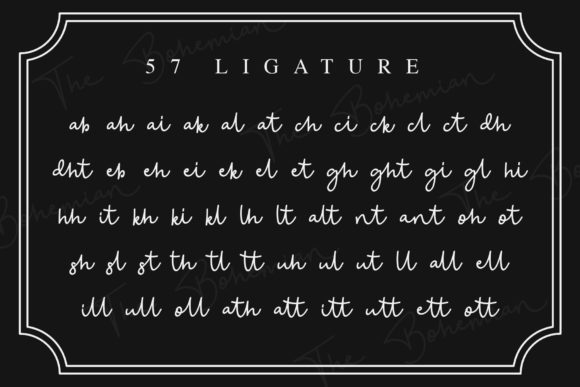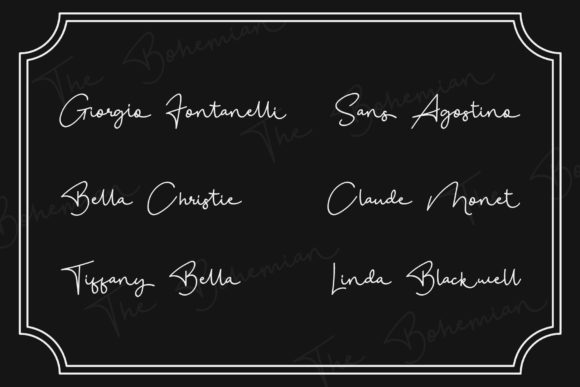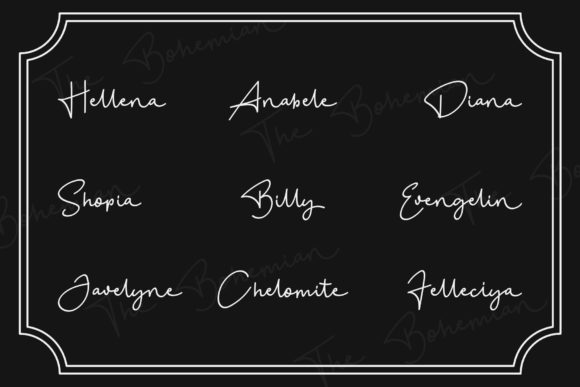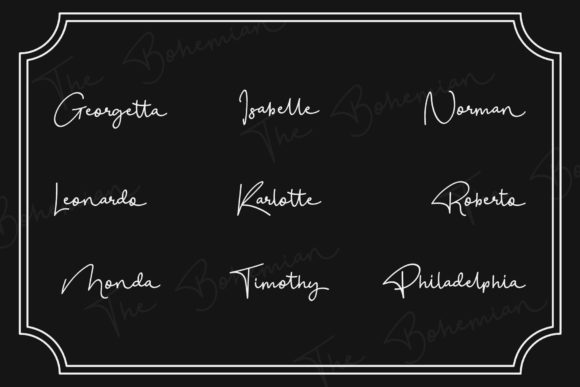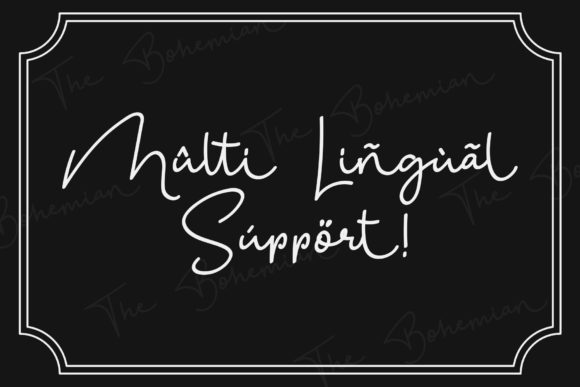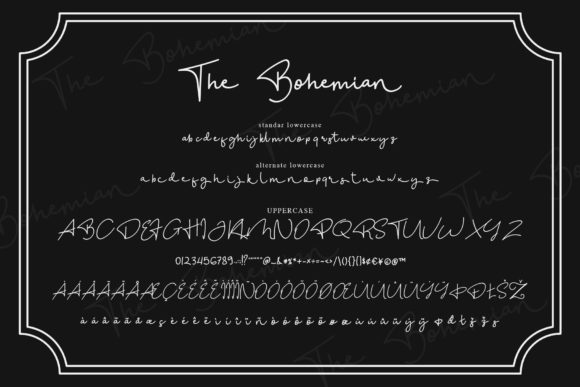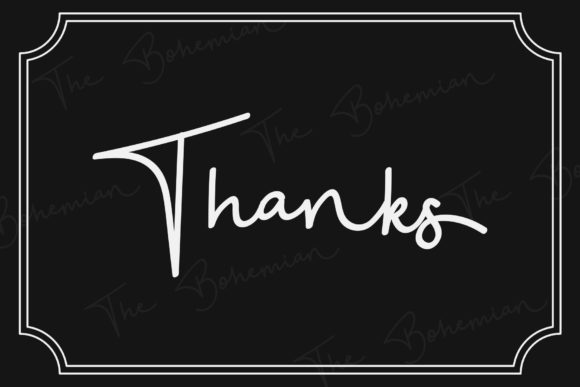
Bohemian Font
About Bohemian Font
The Bohemian stands as an elegant handwritten script font, characterized by its simple yet classy style. Designed to add a touch of sophistication to various applications, this font proves to be a versatile and stylish choice for a range of creative projects.
One of the standout features of The Bohemian is its adaptability, making it well-suited for a multitude of purposes. Whether enhancing the aesthetics of photography, lending a touch of elegance to signatures, bringing quotes to life, gracing album covers, or elevating the professionalism of business cards, The Bohemian effortlessly complements diverse design contexts.
The font’s simplicity is a key element of its charm, contributing to a timeless and refined visual appeal. The Bohemian’s handwritten script brings a personal touch to your work, creating an authentic and classy vibe that resonates across different applications. It’s not just a font; it’s a design element that has the power to enhance and elevate your creative endeavors.
In essence, The Bohemian is a valuable tool that aspires to take your work to the highest level. Its simple and classy style serves as a foundation for creating visually appealing and sophisticated designs across a wide spectrum of projects. Whether you’re working on promotional materials, personal branding, or artistic expressions, The Bohemian is poised to bring an elevated touch to your creative work.